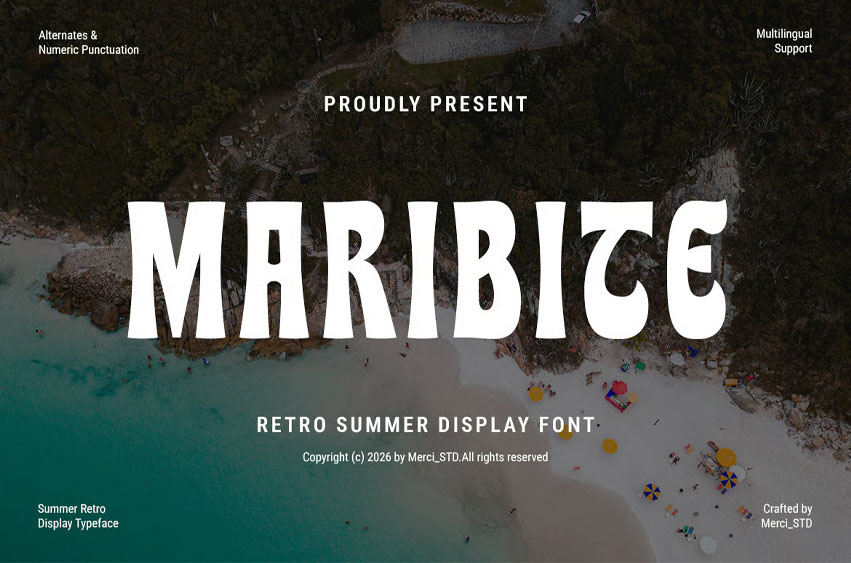
Maribite Font is a retro summer display font featuring playful curves and nostalgic vacation-inspired letterforms.
Designed to bring warm seasonal energy into creative projects, it is ideal for beach branding, travel posters, summer events, packaging, social media graphics, merchandise, and retro-themed visual designs. Its charming personality creates an inviting and memorable impression.
• Uppercase Letters
• Ligature & Alternate Character
• Unique Hand-Drawn Style